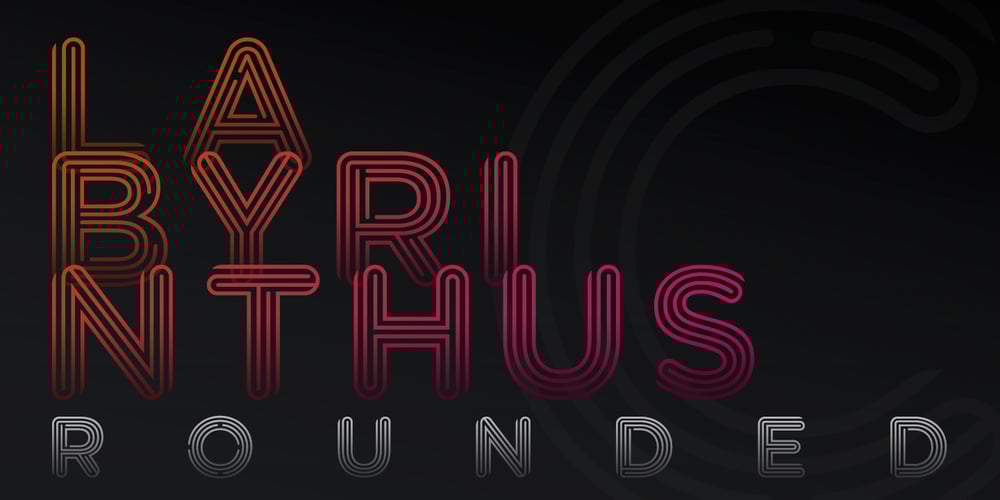
Labyrinthus Rounded Font Family was designed by Antonio Cerri and published by Cerri Antonio. Labyrinthus Rounded contains 1 styles and family package options. Labyrinthus Rounded is a multiline decorative font that works very well for identity logos, posters and 3D-works. It continues the tradition of the precedent Labyrinthus but with a softer rounded impact. It’s interesting to note that with it it’s possible to play with the multiline concept to create endless overlapping geometric creations.